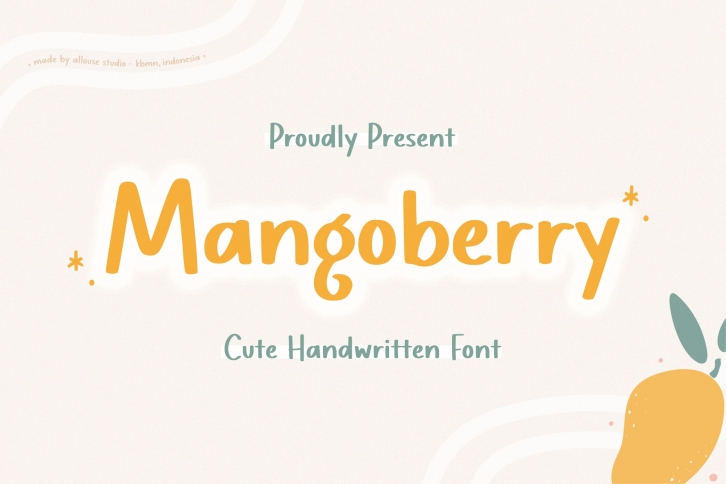
Mangoberry is a beautiful font that was designed by Allouse Studio. It's a great choice for designers and creatives who need such a font. It was released on May 30, 2022 and the file size is 16.50 MB. Mangoberry may give a more youthful, expressive and casual look to your project. It is a very beautiful, refined, elegant, and high-quality font.